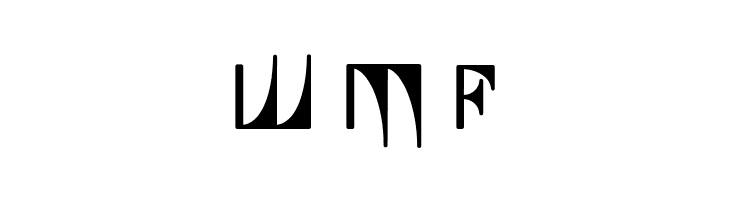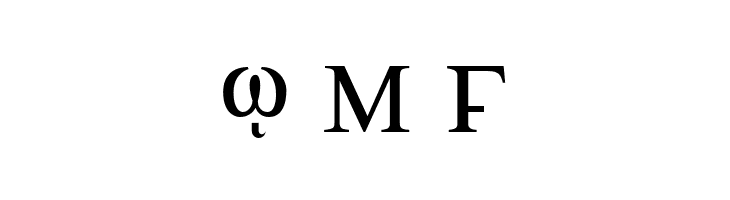
A classic serif font with a condensed width and medium contrast, offering elegance and readability.
A modern, italic font with clean lines and moderate contrast, offering elegance and readability.
A bold, geometric font with a 3D zigzag pattern, offering a modern and dynamic look.
A classic serif font with a modern touch, offering elegance and readability.
Artistic cow illustrations replace traditional characters, offering a whimsical design element.
A modern, pixelated font composed of small circles, offering a playful and decorative style.
A bold serif font enclosed in ovals, offering a decorative and impactful style.
A bold, abstract font with geometric shapes and high contrast, offering a modern and artistic look.
A decorative font composed of interconnected circular dots, offering a playful and modern design.
A modern, pixelated font composed of 3x3 dot grids, offering a playful and tech-inspired aesthetic.
A classic serif font with a modern twist, offering elegance and readability.
A bold Gothic font with a shadow effect, offering a dramatic and historical style.
A bold blackletter font with shadow effects, offering a dramatic and historical style.
A bold numeral font enclosed in geometric shapes, offering a modern and decorative style.
A classic serif typeface with a modern touch, offering elegance and readability.
A blend of ancient Egyptian hieroglyphs and Greek script, offering a historical aesthetic.
A modern sans-serif font with an oblique style, offering clarity and dynamic appeal.
A dynamic font with a shattered glass effect, offering an edgy and bold appearance.
A classic serif font with a modern touch, offering elegance and readability.
An elegant serif font with an italic style, offering a classic and sophisticated look.
A decorative font with intricate curls and loops, offering a whimsical and artistic style.